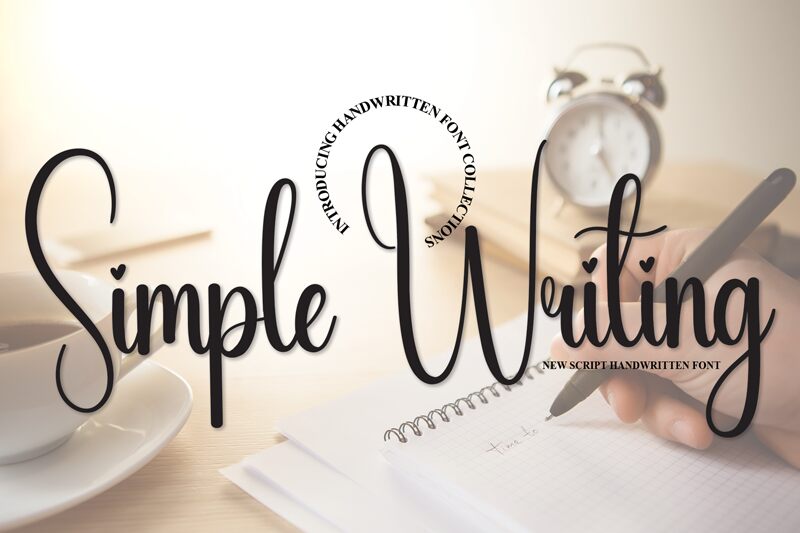
Simple Writing
Simple Writing by Scratchones is a font that breathes elegance and simplicity into the realm of calligraphy. Its graceful curves and streamlined letters evoke the charm of handwritten artistry, making each character appear effortlessly stylish. The fluidity of Simple Writing captures a timeless aesthetic, pairing beautifully with projects that aim for an air of sophistication without overwhelming intricacy.
Ideal for invitations, branding, and editorial design, this font transforms any text into a statement piece. Its balanced proportions make it versatile for both digital and print mediums, ensuring your message is delivered with a personal touch that resonates with viewers. Embrace the allure of Simple Writing to infuse your work with delicate refinement and classical allure.